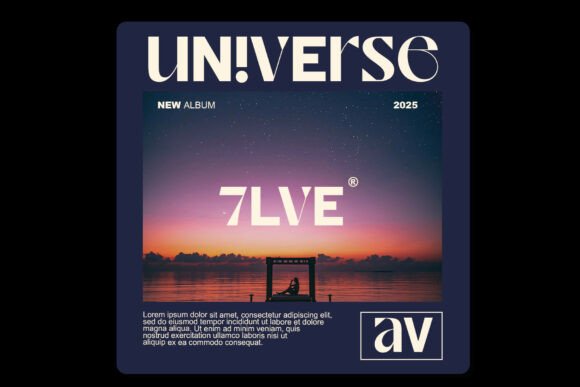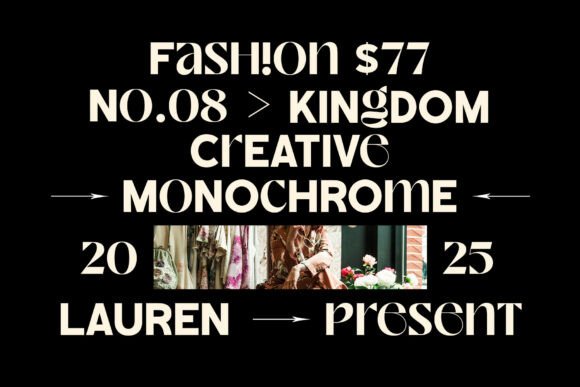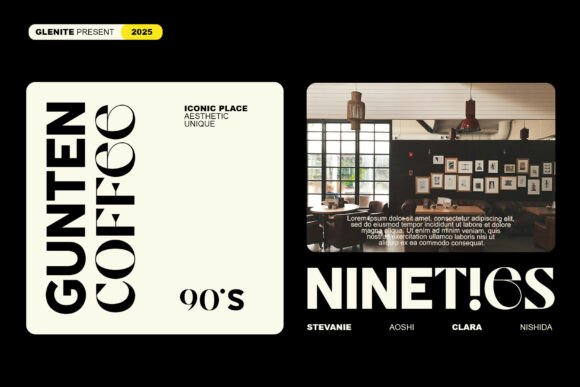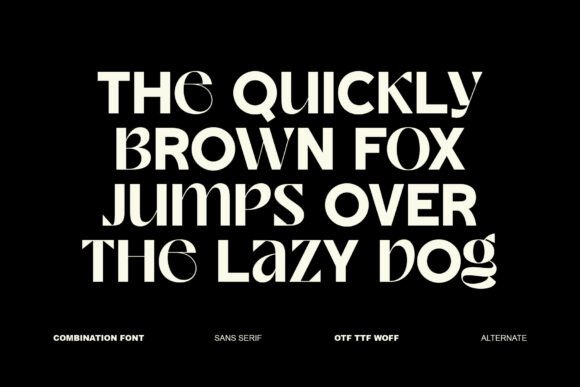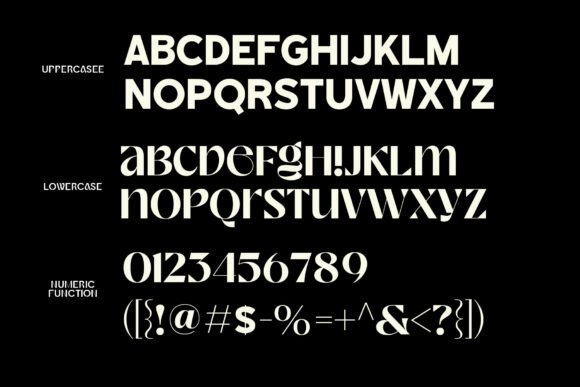
Glenite Font: Elevate Your Designs with a Modern Display Font
In the world of typography, fonts play a crucial role in conveying the tone and personality of a brand or design. For designers and crafters looking to make a statement, Glenite Font is an excellent choice. This modern display font seamlessly fuses sleek sans serif structure with stylish, artistic alternates, making it perfect for bold branding and eye-catching digital design.
The Unique Characteristics of Glenite Font
Glenite Font boasts clean lines that are complemented by striking character shapes and creative ligatures. These distinctive features give your headlines, posters, or editorial layouts a high-fashion edge that’s sure to turn heads. The font’s contemporary and experimental vibe makes it an ideal choice for designers looking to push the boundaries of typography.
Key Features of Glenite Font
- Sleek Sans Serif Structure: Glenite’s base structure is rooted in sans serif typography, providing a clean and modern look that’s versatile and easy to read.
- Stylish Artistic Alternates: The font includes a range of artistic alternates that allow designers to add a touch of personality to their work.
- Creative Ligatures: Glenite’s ligatures add an extra layer of creativity to your designs, allowing you to experiment with unique character combinations.
- High-Fashion Edge: The font’s striking character shapes and clean lines give your designs a high-fashion edge that’s perfect for luxury brands, editorials, and high-end advertising.
Perfect for Bold Branding and Digital Design
Glenite Font is specifically designed for bold branding and eye-catching digital design. Its modern and experimental vibe makes it an excellent choice for:
- Headlines and Titles: Use Glenite to create striking headlines and titles that grab attention and make a lasting impression.
- Posters and Flyers: The font’s clean lines and artistic alternates make it perfect for posters and flyers that need to stand out.
- Editorial Layouts: Glenite’s high-fashion edge makes it an excellent choice for editorial layouts, such as fashion magazines and luxury lifestyle publications.
- Digital Design: The font’s versatility and modern vibe make it perfect for digital design, including social media graphics, website headers, and more.
Tips for Using Glenite Font Effectively
To get the most out of Glenite Font, here are a few tips to keep in mind:
- Experiment with Alternates: Don’t be afraid to experiment with Glenite’s artistic alternates to add personality to your designs.
- Play with Ligatures: Use Glenite’s ligatures to create unique character combinations that add an extra layer of creativity to your designs.
- Mix and Match: Combine Glenite with other fonts to create a unique look that reflects your brand’s personality.
- Keep it Bold: Glenite Font is designed to make a statement, so don’t be afraid to use it in bold and eye-catching ways.
Glenite Font is a modern display font that’s perfect for designers and crafters looking to elevate their designs with a high-fashion edge. Its sleek sans serif structure, stylish artistic alternates, and creative ligatures make it an excellent choice for bold branding and eye-catching digital design. With its contemporary and experimental vibe, Glenite Font is sure to make a statement in any design.